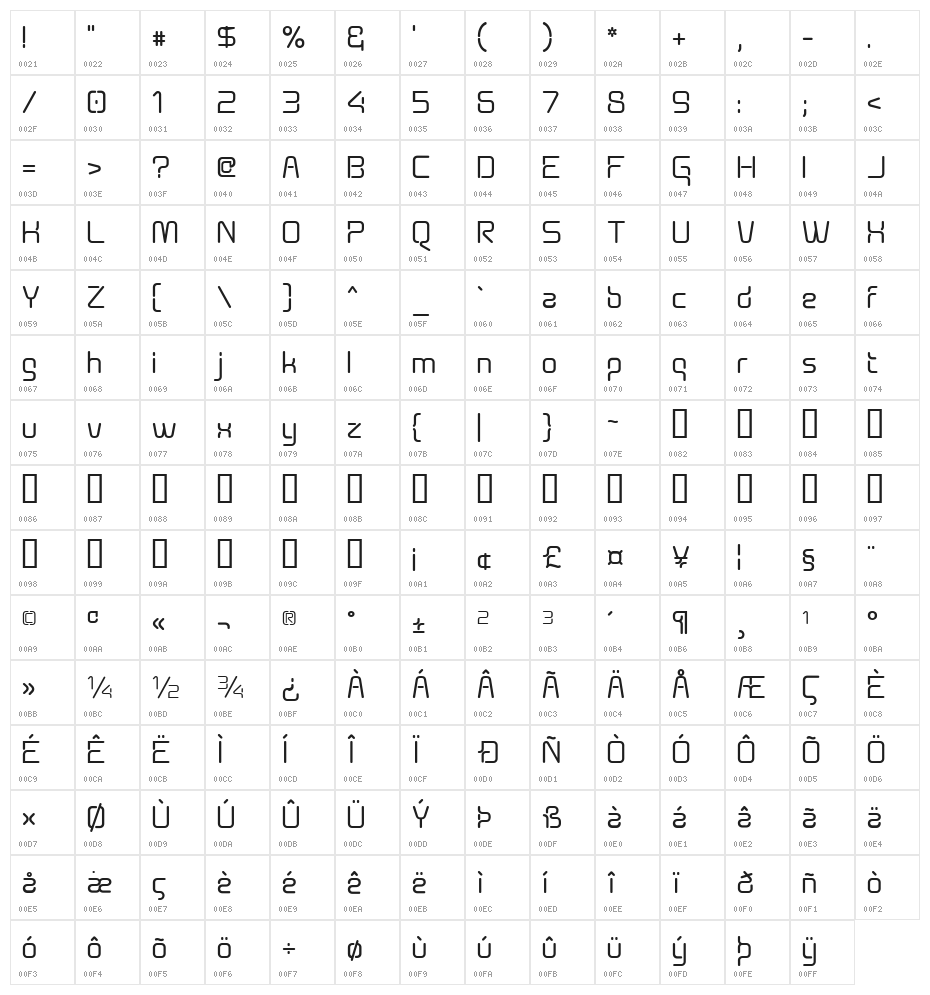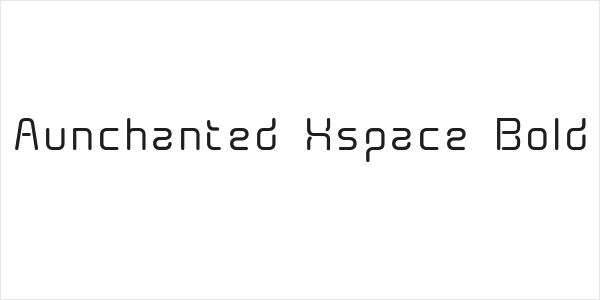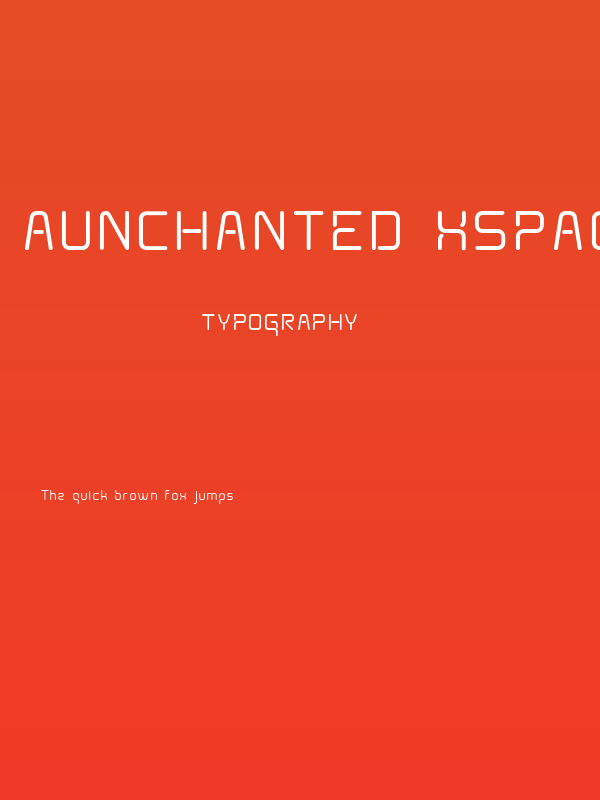
Aunchanted Xspace Bold Font
Aunchanted Xspace Bold Description
This font features a futuristic and geometric design with rounded edges and a clean, streamlined appearance. The characters are uniform in width, giving it a monospaced feel, though it maintains a modern sans-serif style. The uppercase letters are bold and distinct, with a slightly condensed form that enhances readability. The lowercase letters mirror the uppercase in style, maintaining the same rounded and geometric characteristics. Numbers are clear and consistent, matching the overall aesthetic of the font. Special characters are well-integrated, maintaining the same design ethos with rounded edges and a modern touch.
| Use Case | Headlines, Logos, Digital Interfaces |
| Proposed Projects | Ideal for technology branding, sci-fi themed projects, modern web design, and digital interfaces. |